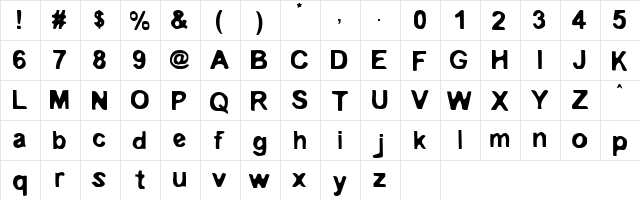
EmbryonicOutside Regular
Design Context for EmbryonicOutside Typeface
EmbryonicOutside is a composed and adaptable typeface that performs quietly and consistently across a wide range of design contexts.
Pro Tip: Use EmbryonicOutside in both headline and body roles to test its range before committing to a single application.